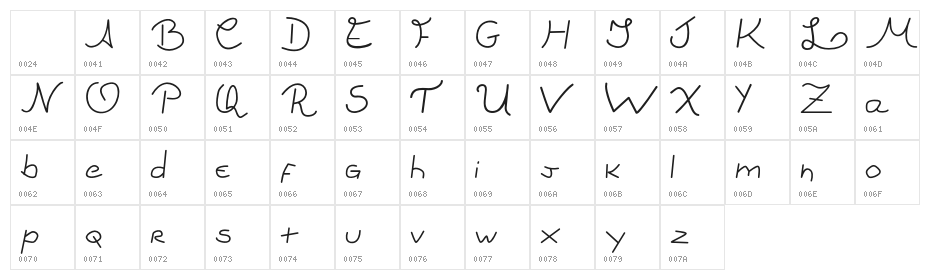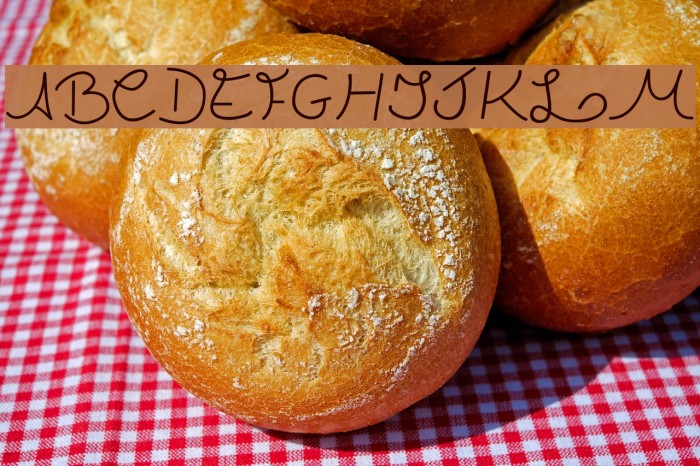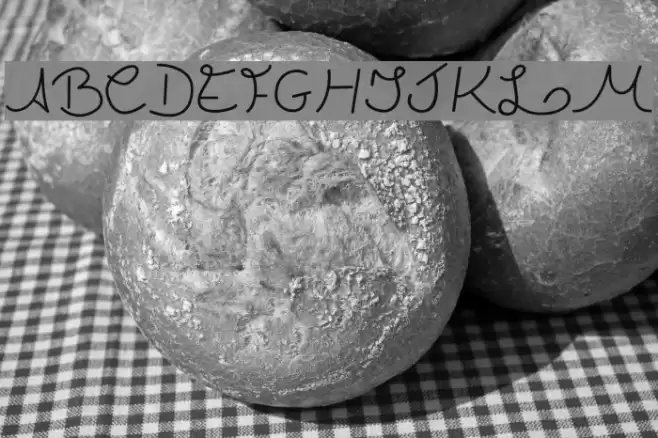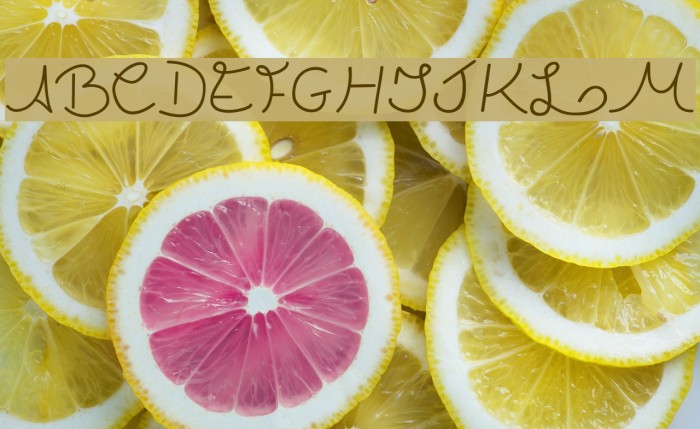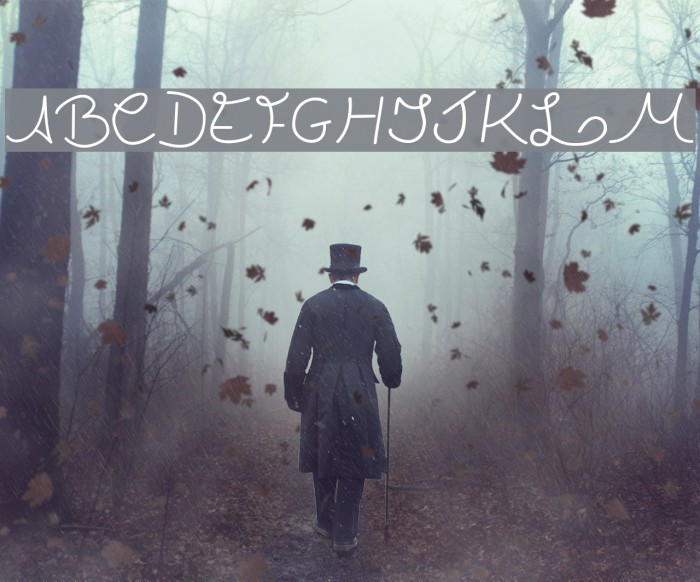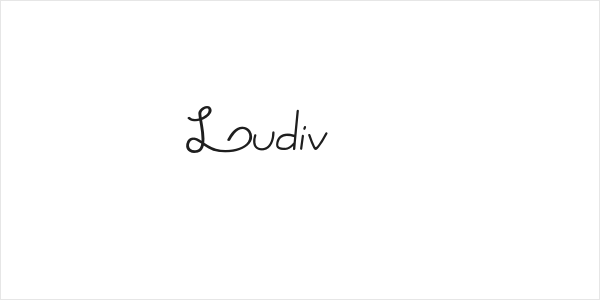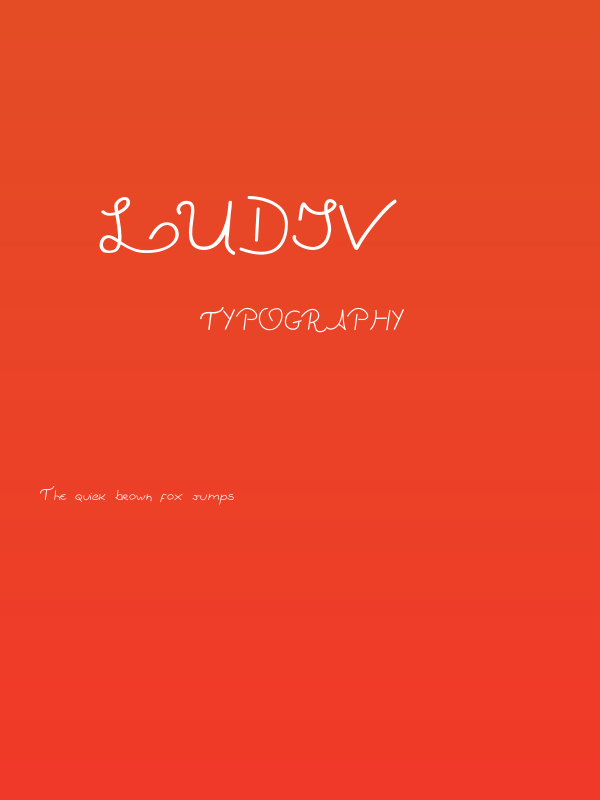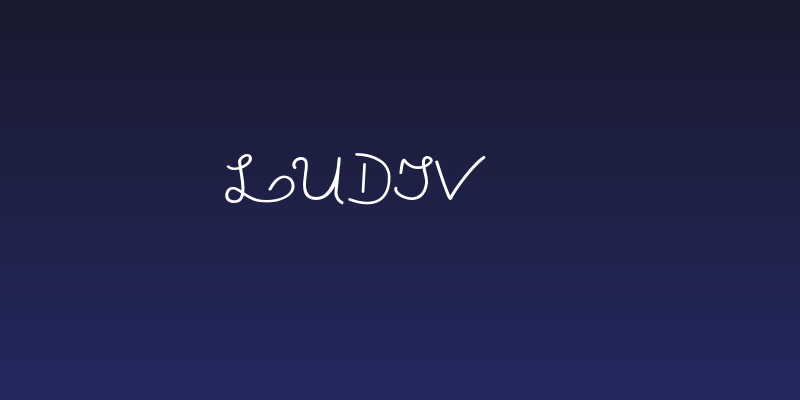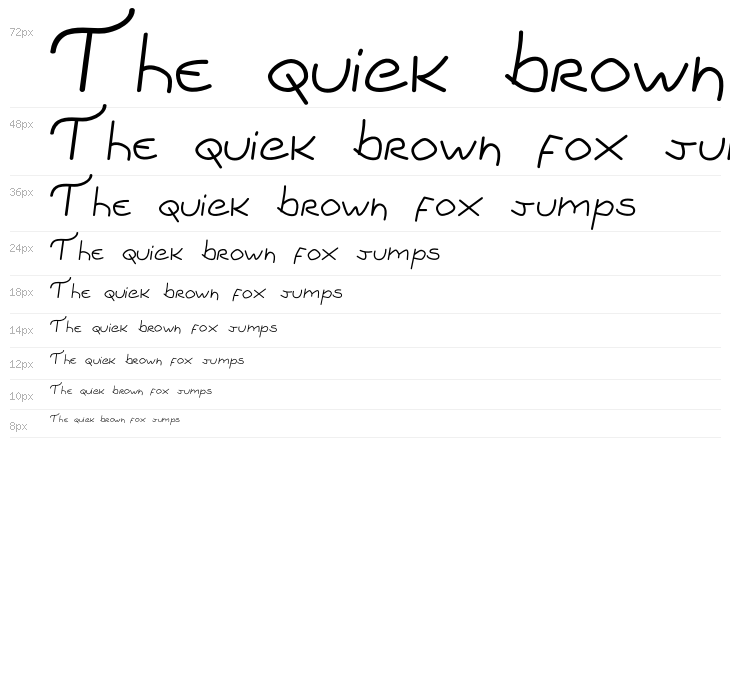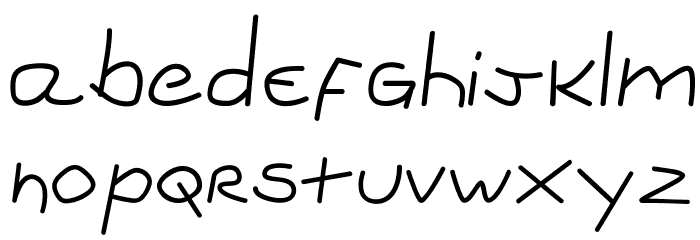
Ludiv1.0 Font
Ludiv1.0 Description
This font features a playful and whimsical design with a handwritten style. The uppercase letters have a unique, flowing appearance with slight curves and loops, giving them a lively character. The lowercase letters maintain a consistent, rounded form, enhancing readability while retaining a casual feel. The numbers and special characters are crafted to match the overall aesthetic, ensuring a cohesive look across all text. The font's informal style makes it suitable for projects that require a personal touch or a fun, engaging vibe.
| Proposed Projects | Ideal for greeting cards, children's books, playful branding, and casual invitations. |